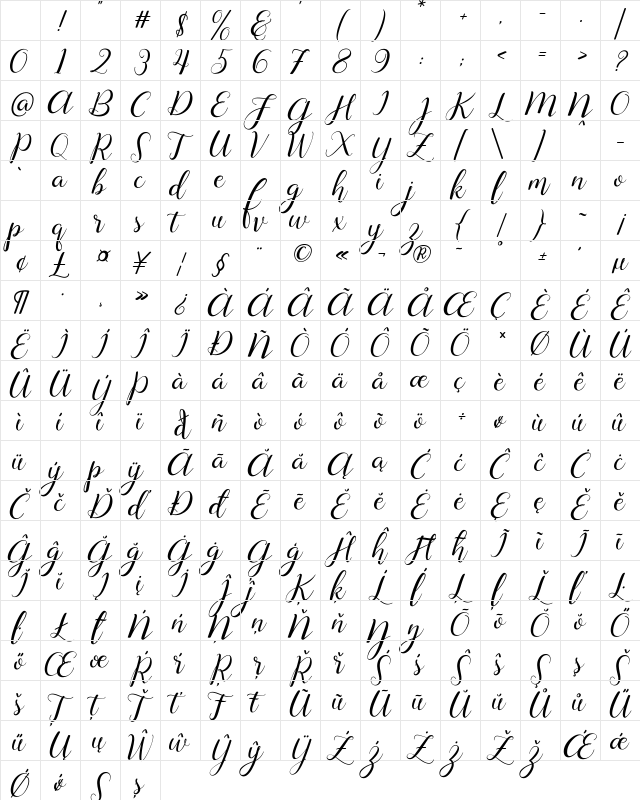
Complete Lysandra Demo Regular glyph index. Displaying only characters natively supported by Lysandra Demo Regular font.
Lysandra Demo is a composed and adaptable typeface that performs quietly and consistently across a wide range of design contexts.